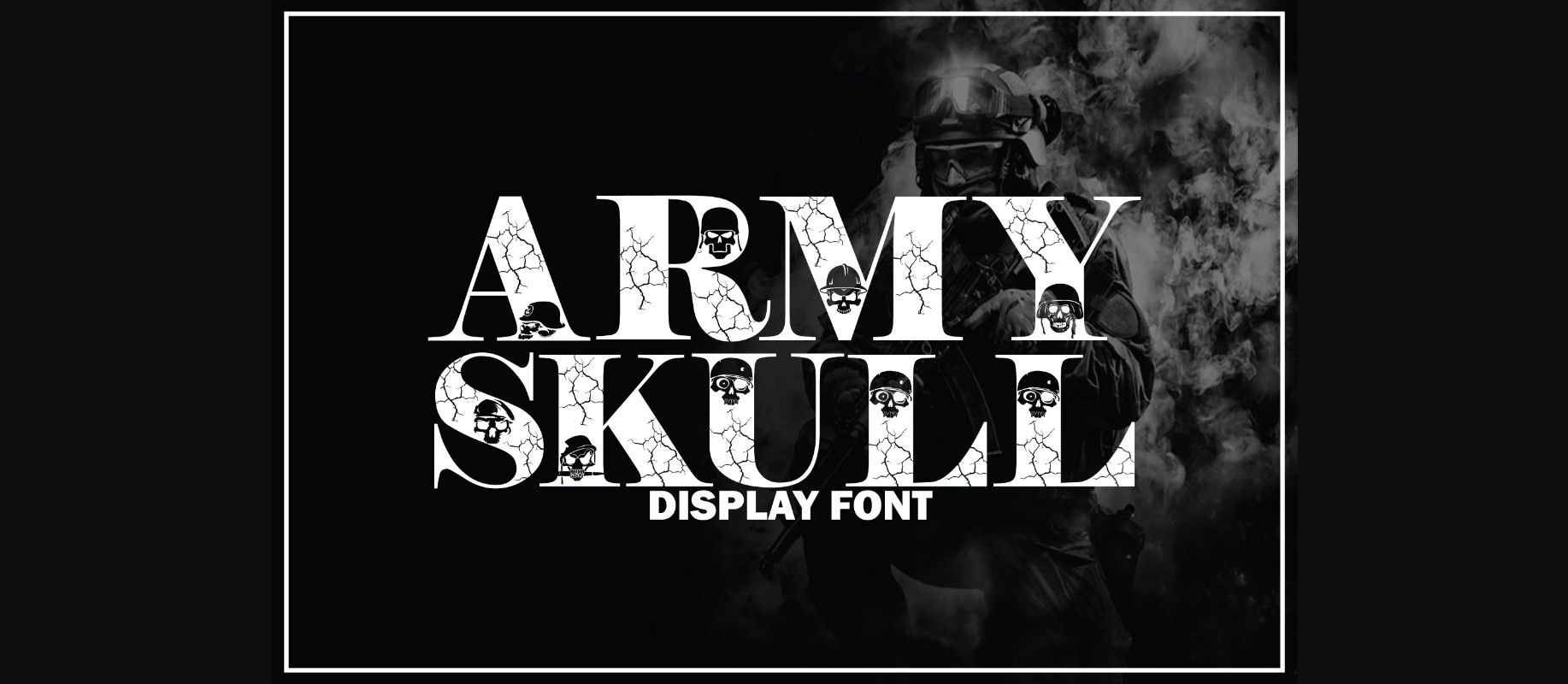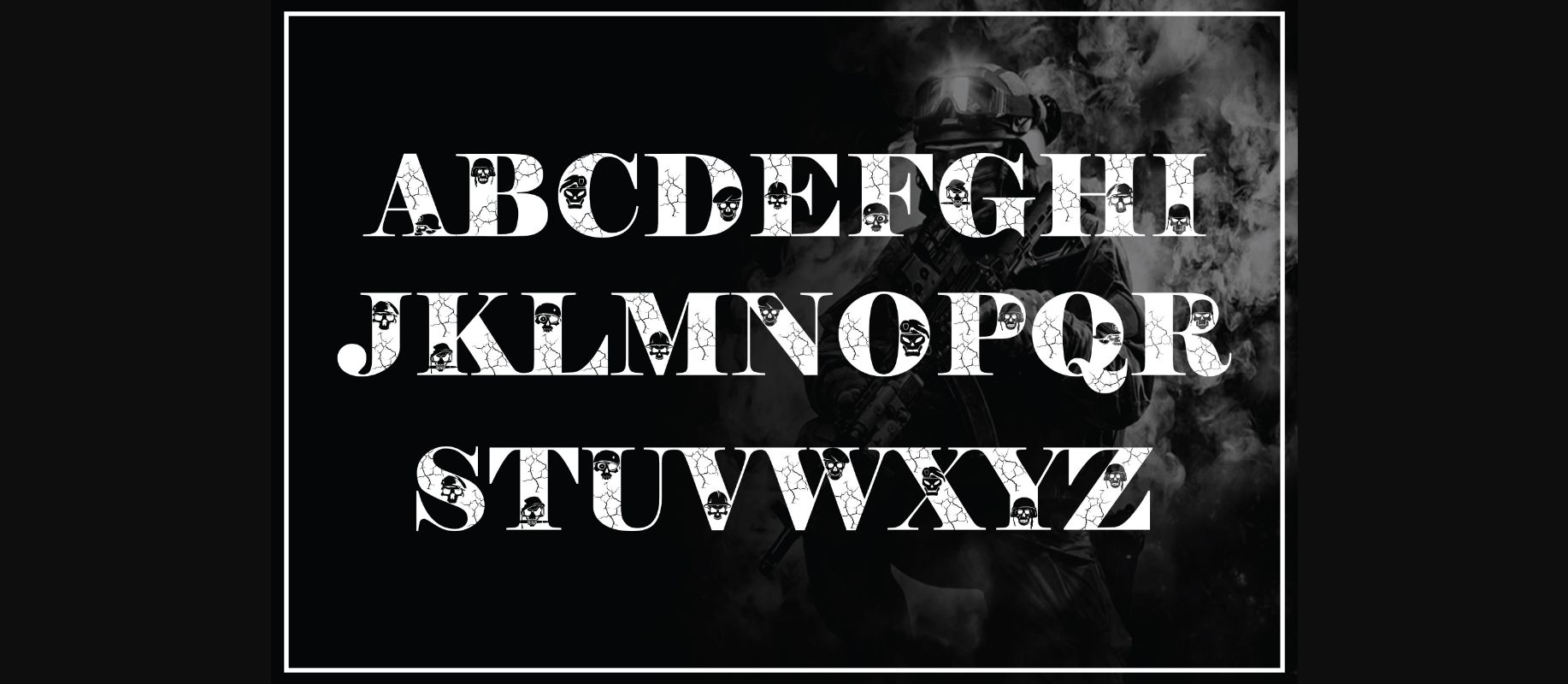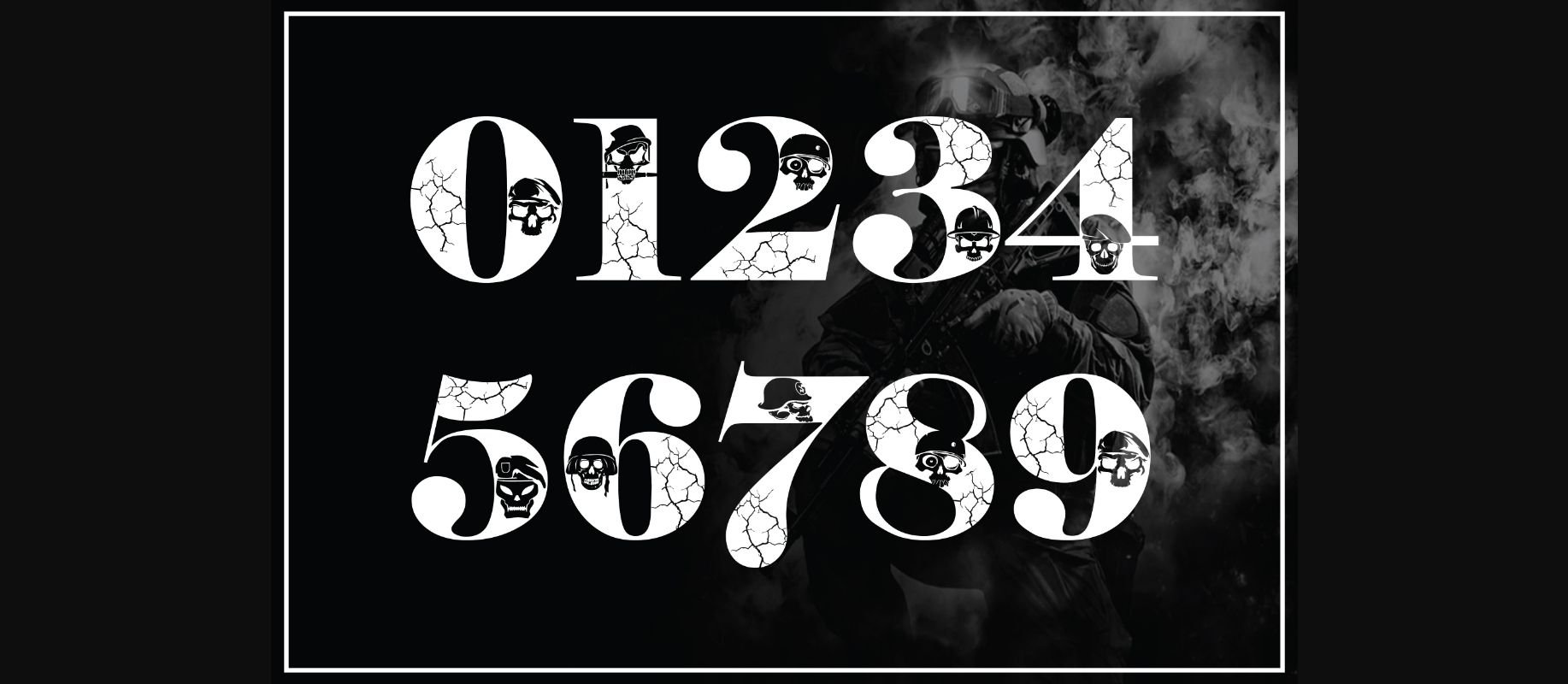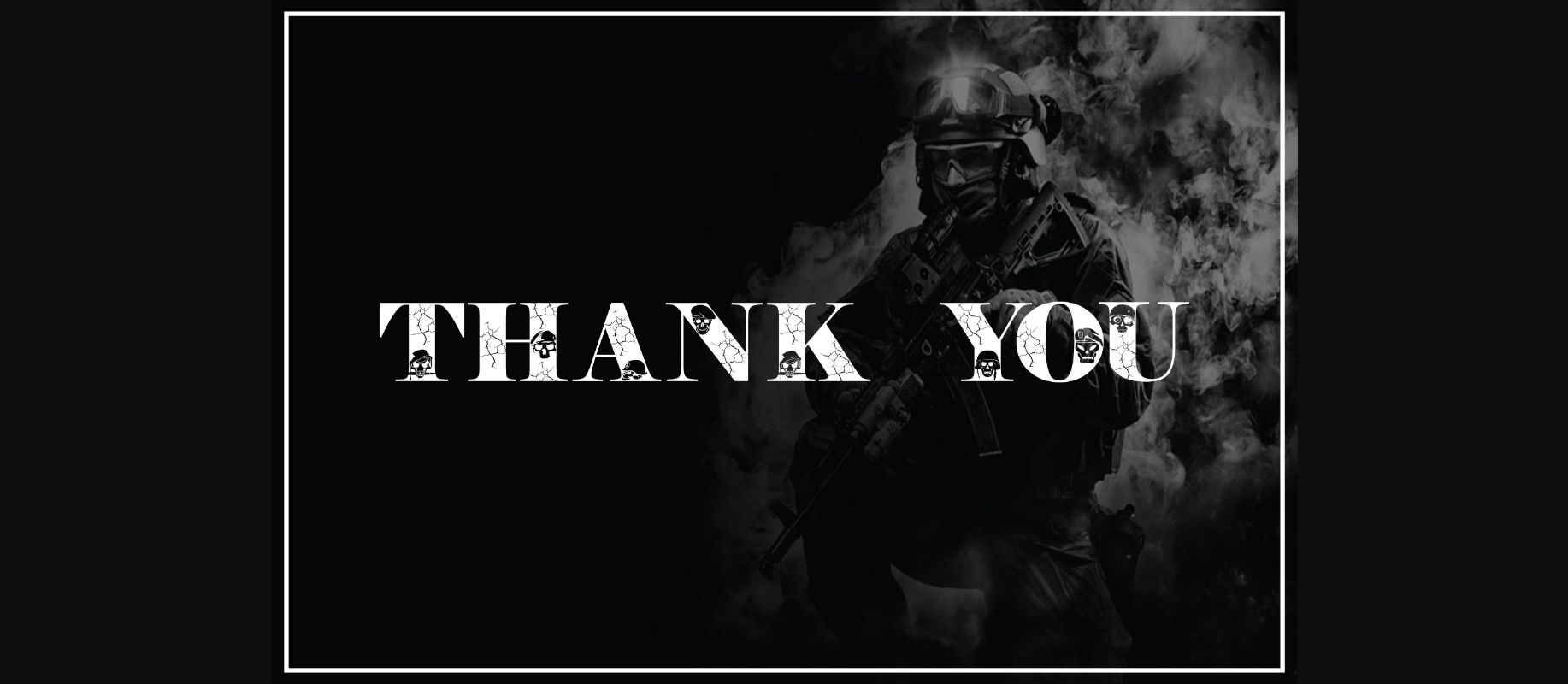
Army Skull Font
About Army Skull Font
Army Skull is a dramatic decorative font. It is perfectly suitable for any design or crafty idea! Add it confidently to your projects and you will love the results!